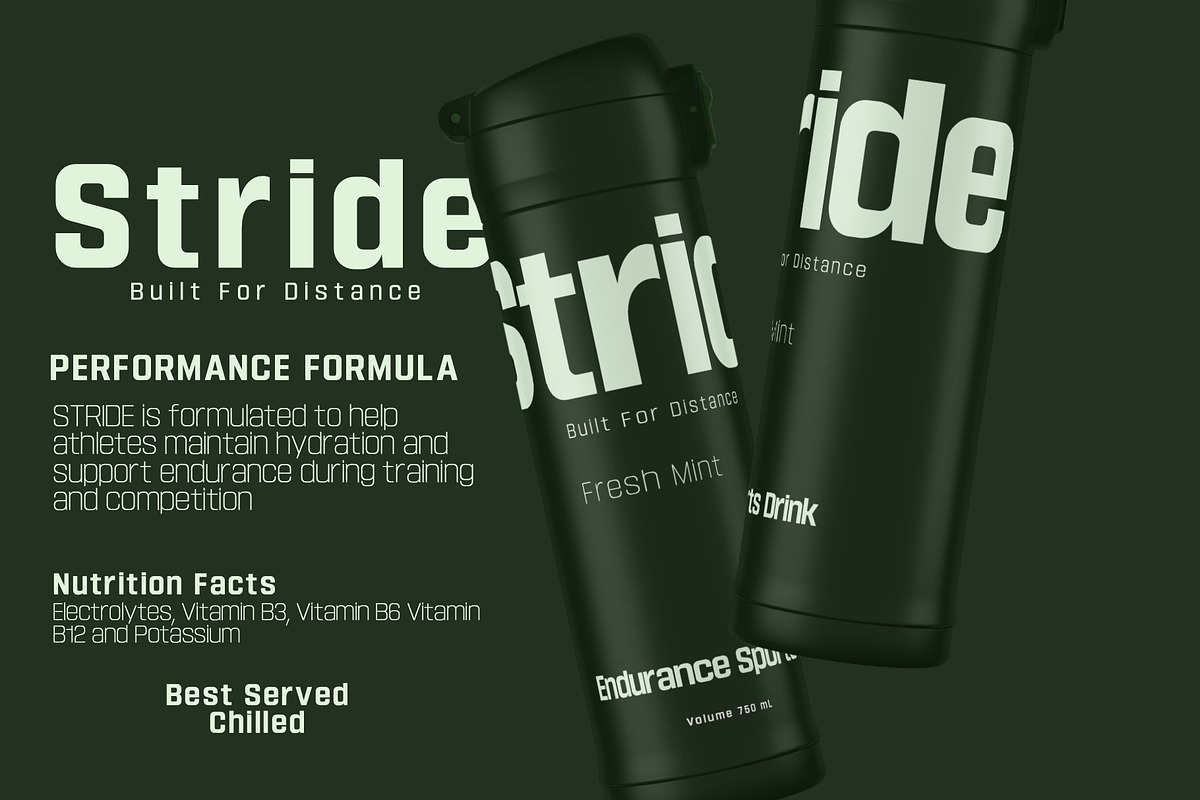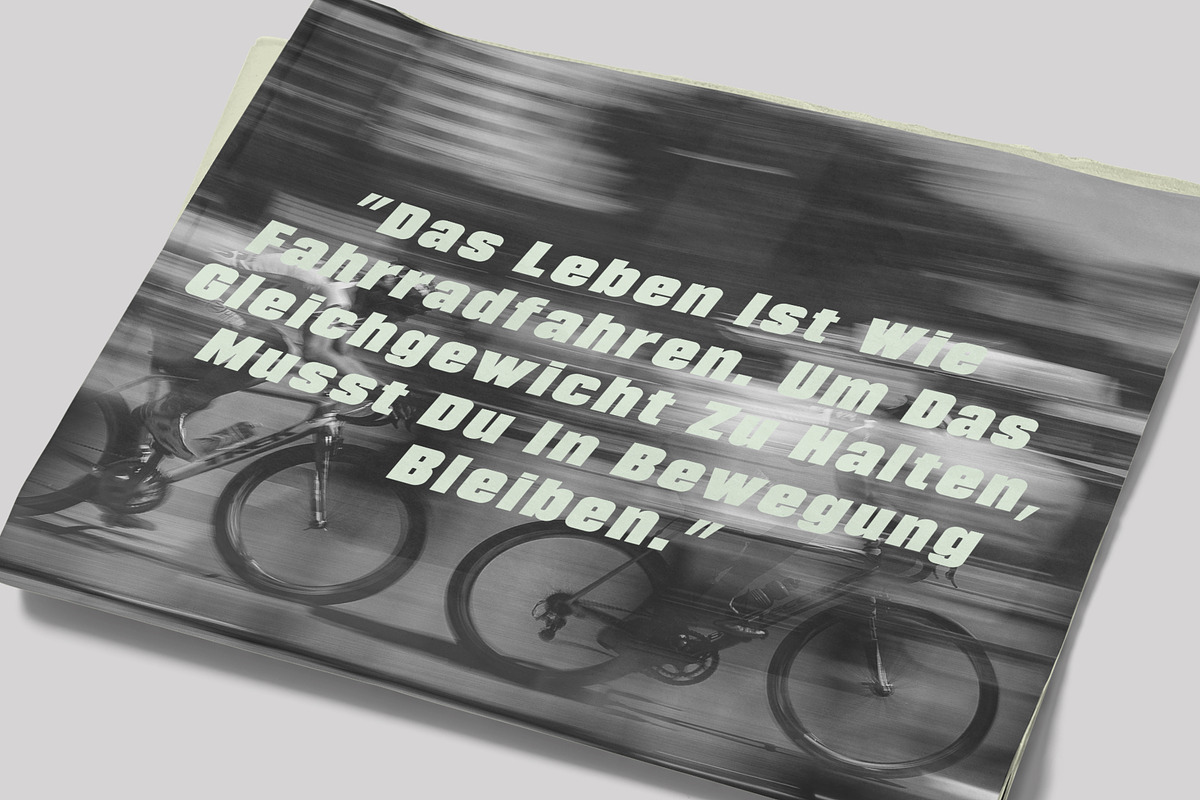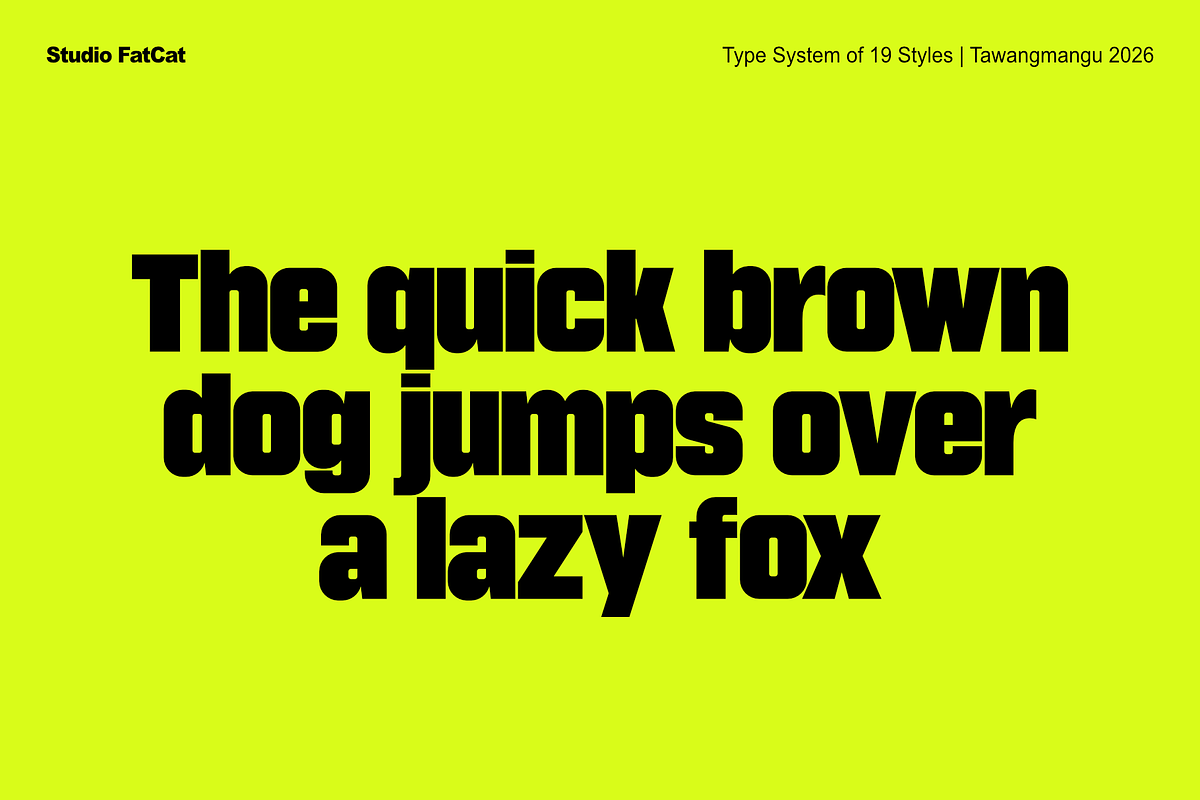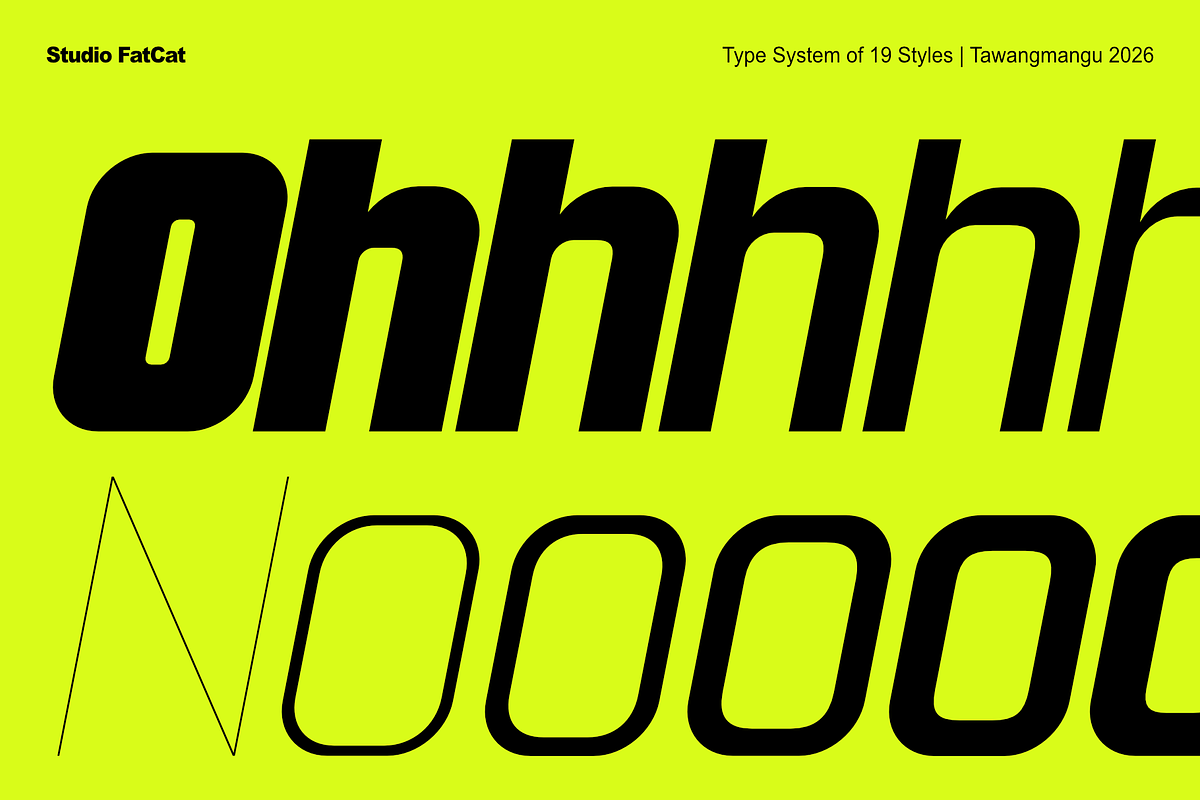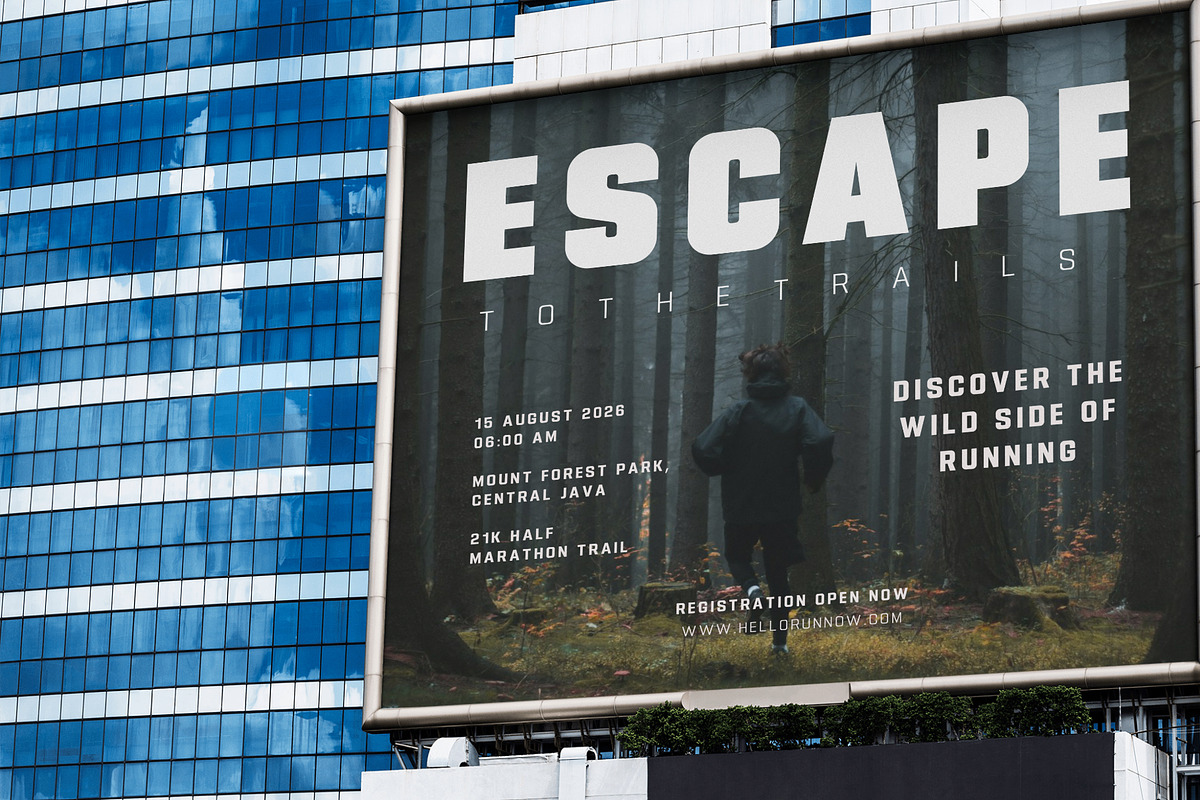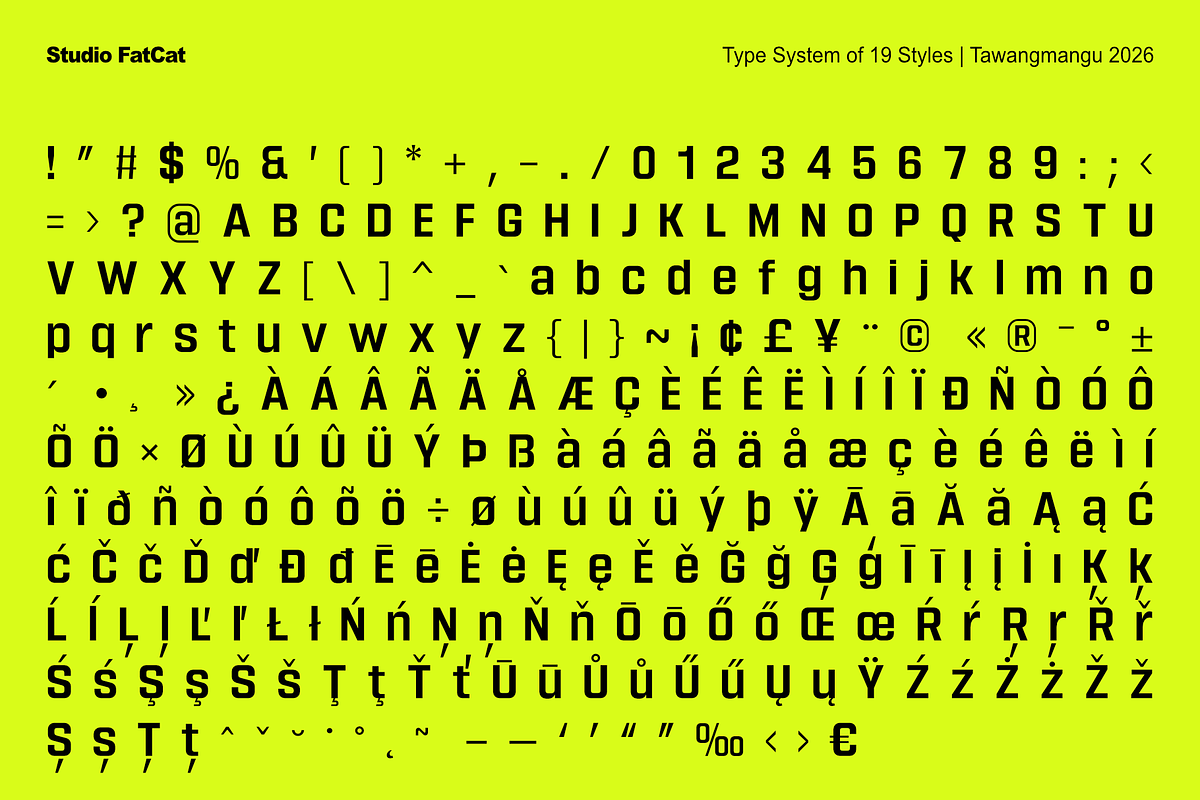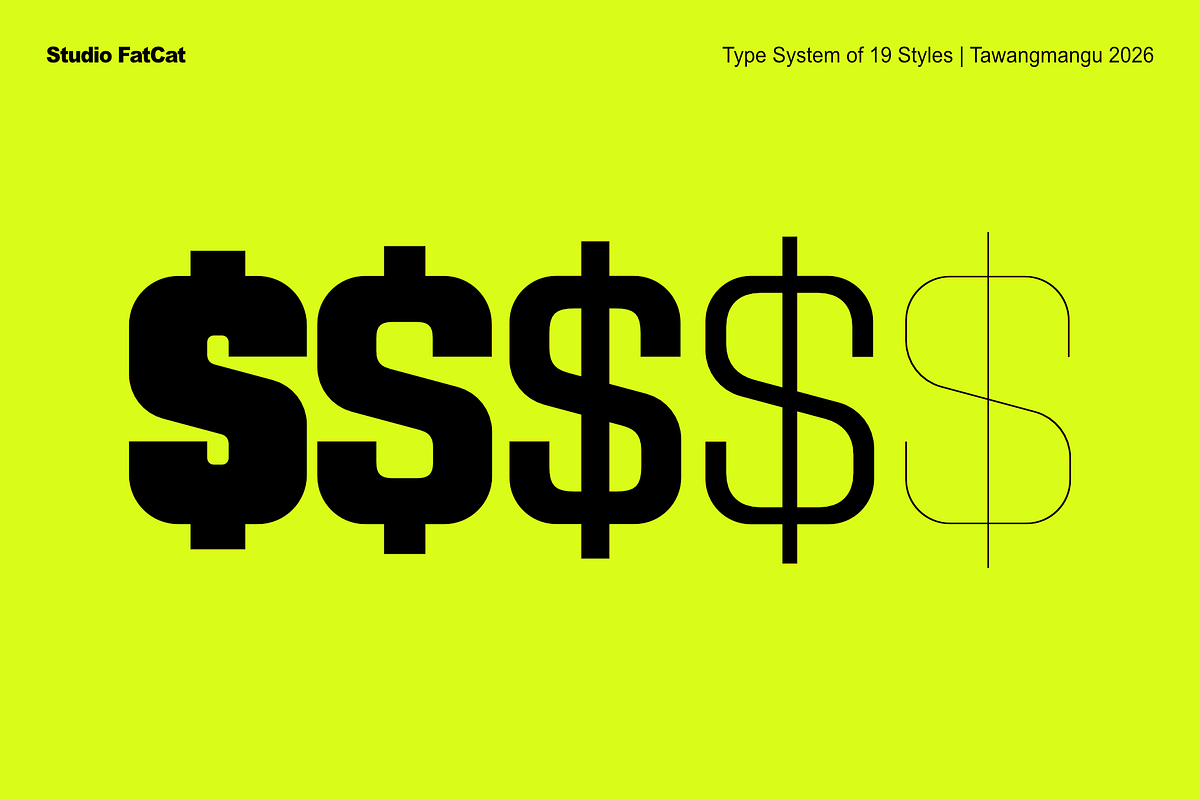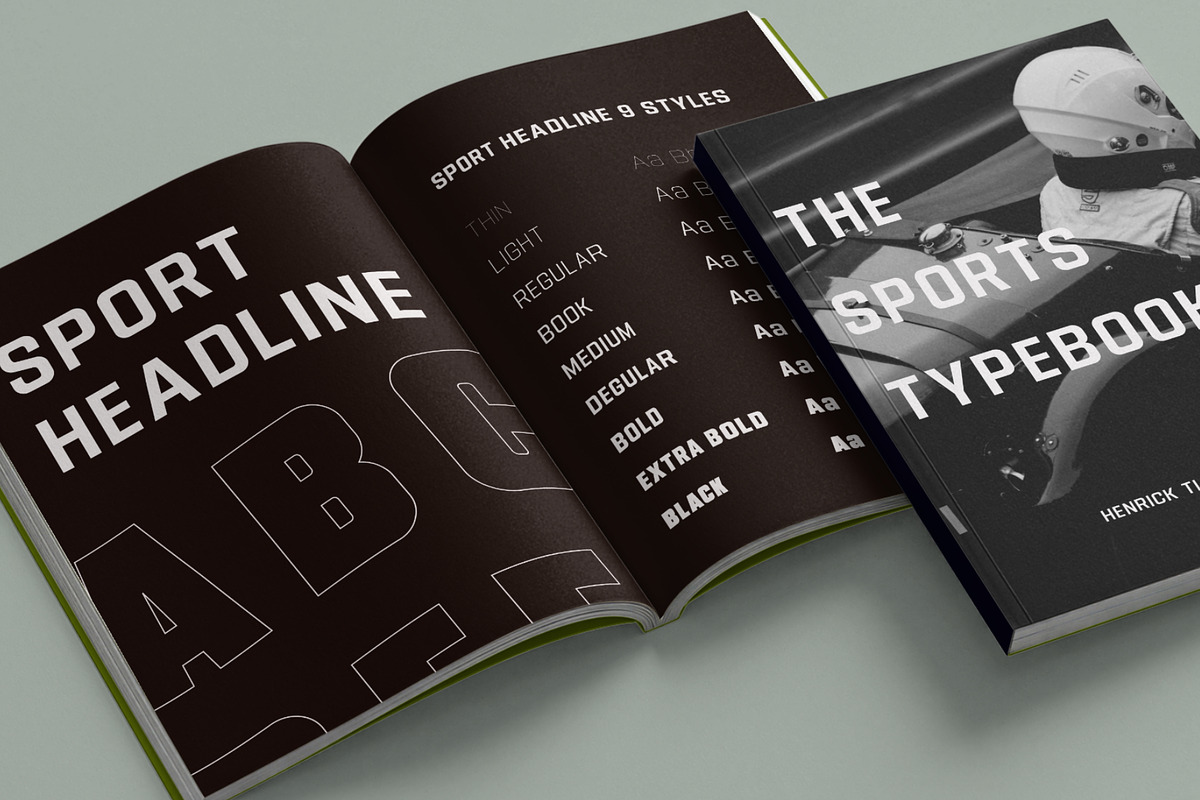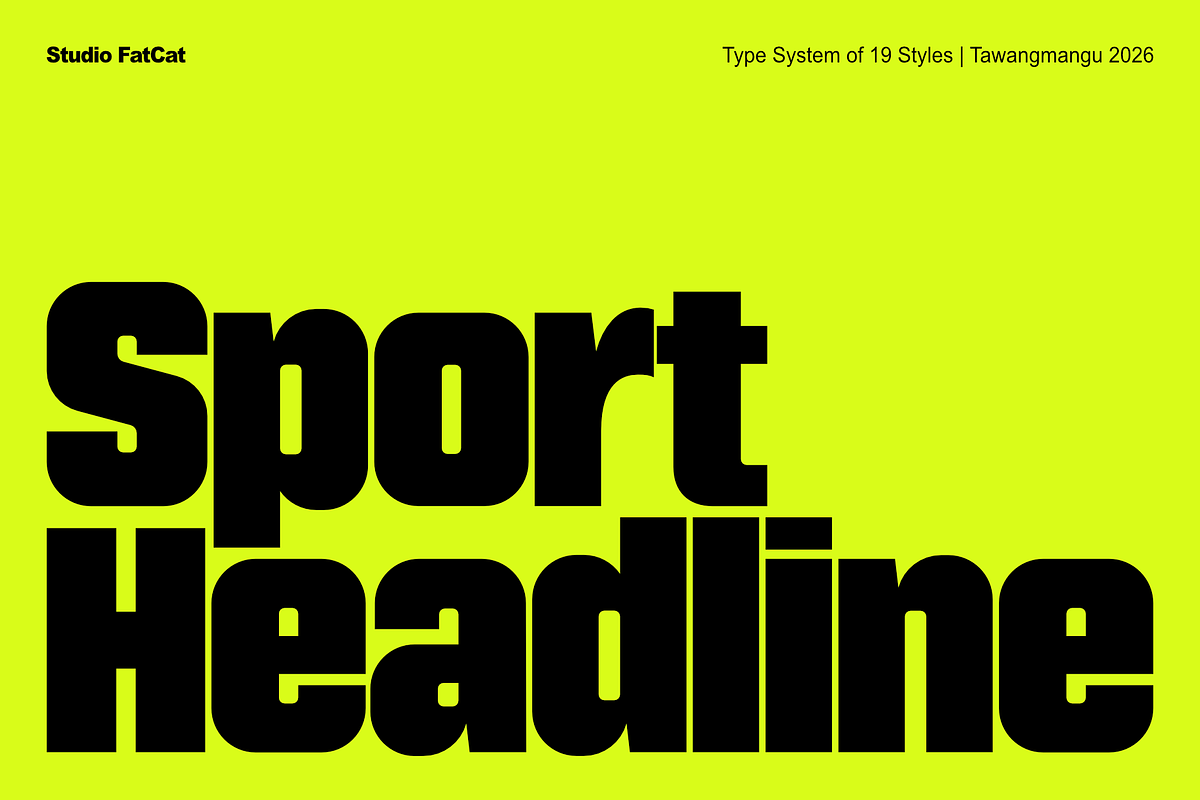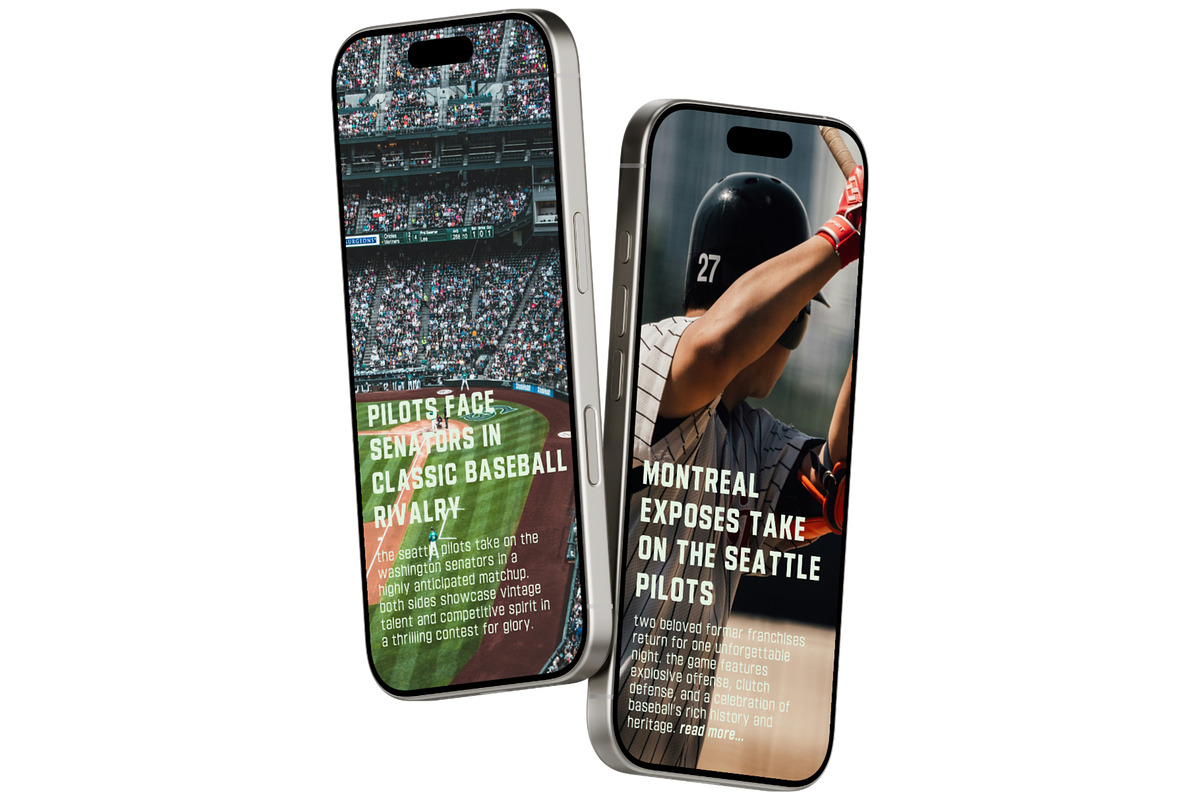
Sport Headline Font Family
Sport Headline is a commanding, flat-sided condensed sans-serif typeface designed explicitly for high-visibility visual communication. Striking a perfect balance between mechanical precision and graphic power, Sport Headline maximizes horizontal space to deliver raw impact without sacrificing legibility or sophistication.
Rooted in the industrial "gaspipe" lettering traditions of mid-century vernacular print and athletic signage, Sport Headline elevates a historic aesthetic for the modern digital era.
Engineered with vertical, flat walls and tight, rapid-turning outer curves, the typeface packs letters tightly together. This minimizes negative space, creating dense, cohesive blocks of text. To counteract the crude, "squashed" appearance common in traditional condensed fonts, Sport Headline features meticulously balanced horizontal strokes and dynamic weight adjustments along its curves, ensuring a clean, confident optical rhythm.The rigid, square-jawed architecture gives the font an unyielding, athletic stance, making it look structured, powerful, and inherently competitive.
Built to thrive where white space is at a premium, Sport Headline is a true typographic workhorse for display layouts sports media & branding like team identities, jersey lettering, stadium environmental graphics, and broadcast lower-thirds, command attention on magazine covers, bold book jackets, movie posters, and digital hero banners, screen-printed apparel, packaging, and high-contrast promotional gear.
Sport Headline is engineered as an expansive 18-font family, featuring 9 meticulous weights from a razor-sharp Thin to a massive, ink-heavy Black, each accompanied by a perfectly tuned matching italic.
Unlike standard slanted fonts, the italics in Sport Headline feature carefully adjusted optical terminals. They introduce a forward-leaning, aerodynamic velocity to the typeface, making them exceptionally well-suited for live action sports graphics, fast-paced editorial layouts, and high-energy marketing campaigns.